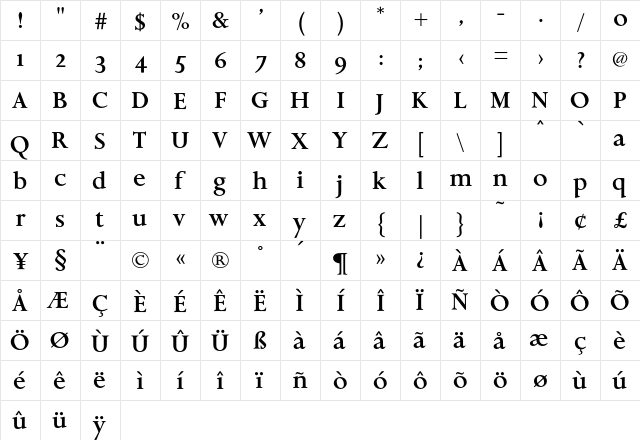
Aries Bold
Design Context for Aries Typeface
Aries takes a measured approach to typography — its balanced proportions and neutral character make it a reliable workhorse for both digital and print work. The heavy weight commands attention and anchors typographic hierarchies.